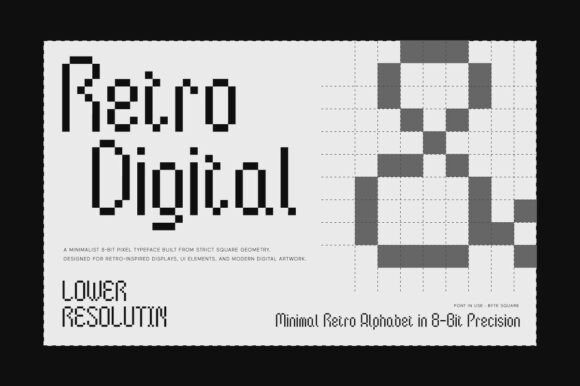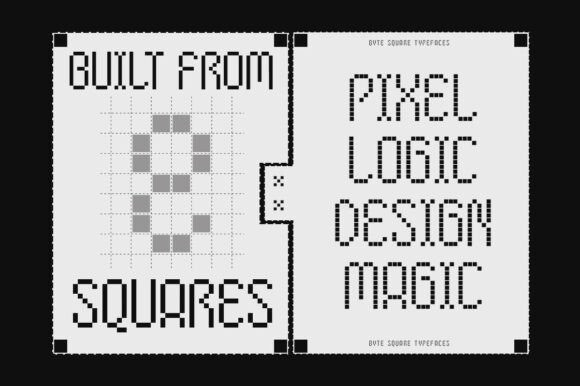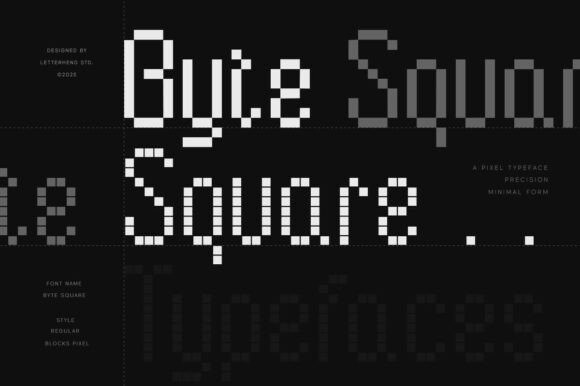
Byte Square Font
Byte Square Font is a cutting-edge pixel typeface that distills digital precision into a minimal, clean, and retro-futuristic form, making it the perfect choice for modern tech and gaming projects.
This distinctive, monospaced Byte Square font is constructed entirely from uniform blocks, offering a crisp, grid-based aesthetic reminiscent of classic 8-bit games and early computing displays. The inherent simplicity and geometric structure of the Byte Square typeface provide a unique, instantly recognizable style for app interfaces, large-scale event displays, and innovative digital branding that requires a nostalgic yet sleek feel.
Designed for impact at various resolutions, this font captures the essence of digital art and minimalist design. Utilize the precision and minimal form of the Byte Square font to give your logos, merchandise, and tech-focused content a strong, contemporary, and unerringly blocky presence.
Perfect for game interfaces, tech branding, coding-themed visuals, digital posters, and any project seeking nostalgia and modern digital clarity.